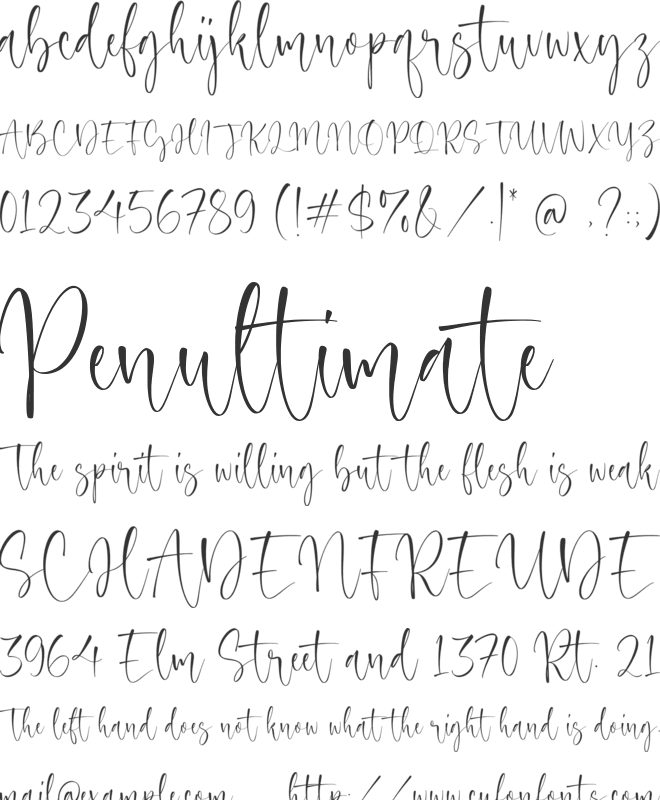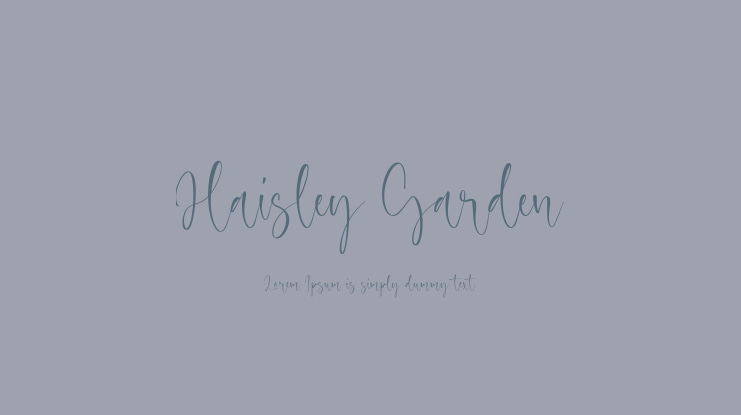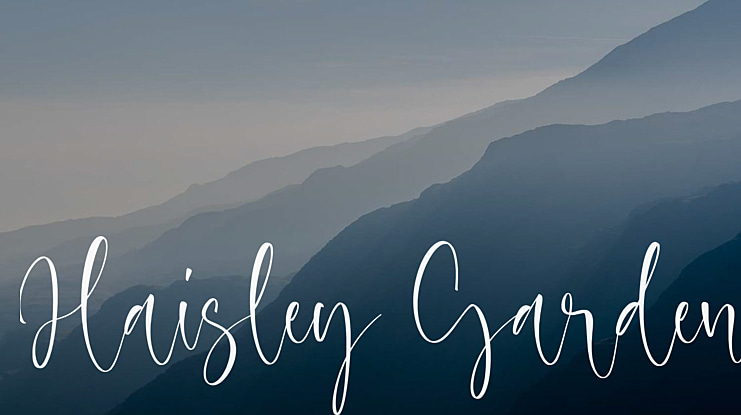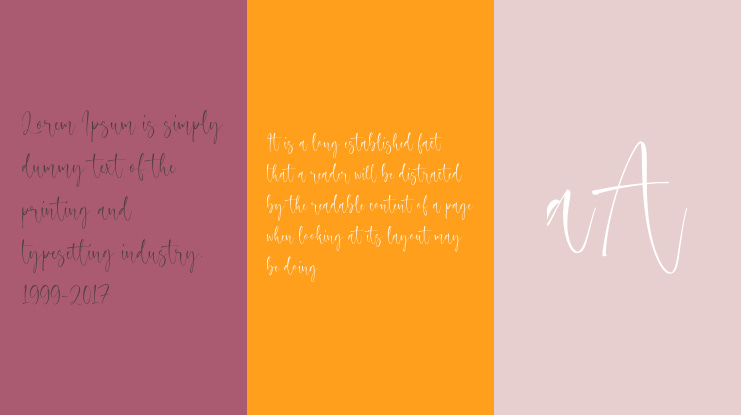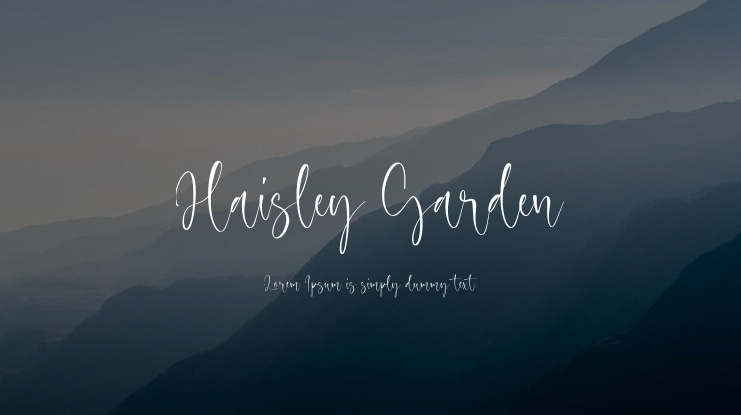
Timur Type Studio
Haisley Garden is a modern and fresh handwritten script font that exudes warmth and invites a welcoming atmosphere for your business. Its stylish design adds a touch of magic to any project you have in mind.
Whether you're working on product packaging, a branding project, a magazine layout, social media graphics, wedding materials, or simply want to make a statement on a background, Haisley Garden is the perfect choice.
Key Features of Haisley Garden Font include:
- Complete set of standard alphabet and punctuation marks
- Multilingual support for broader usability